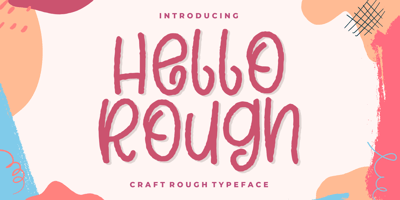
Hello Rough
Hello Rough font
Hello Rough Font Family was designed by Good Java and published by Good Java Studio. Hello Rough contains 1 styles and family package options. Introducing Hello Rough is the perfect font for all your classical and minimalism designs. The main font file is equipped with ordinary characters. Everything is made with the natural handdrawing. So you can be sure they will work well together!It is suitable for you to use in making t-shirt design, quote, label, packaging, logo type, or long writing. Because we have compiled kerning and matrices that are tailored to your needs.